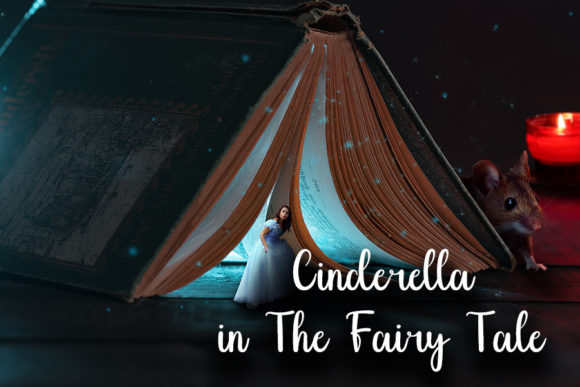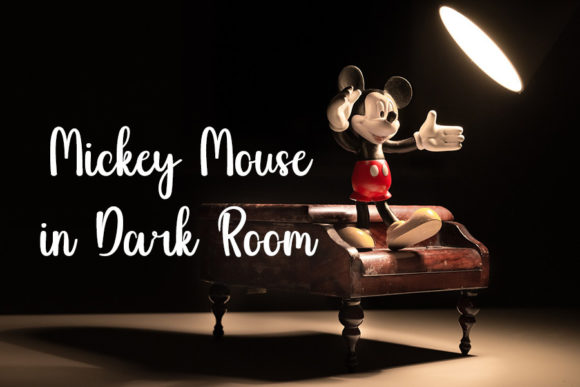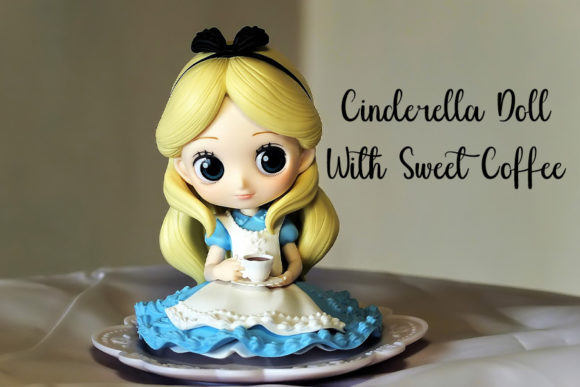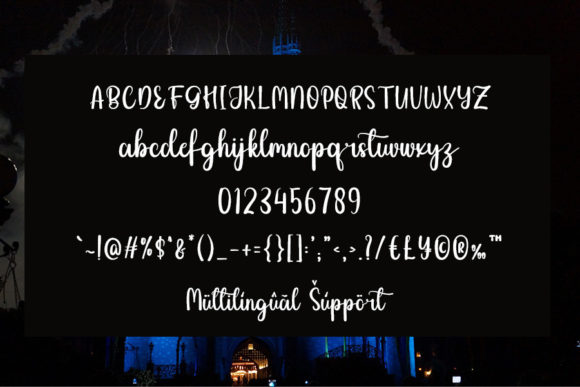
About Dunky Dreams Font
Dunky Dreams is a stylish handwritten font with a contemporary atmosphere and impeccable form, inspired by a timeless classic calligraphy. Not too thin and not too thick, balanced and varied, this font was designed to enhance the beauty of your projects.